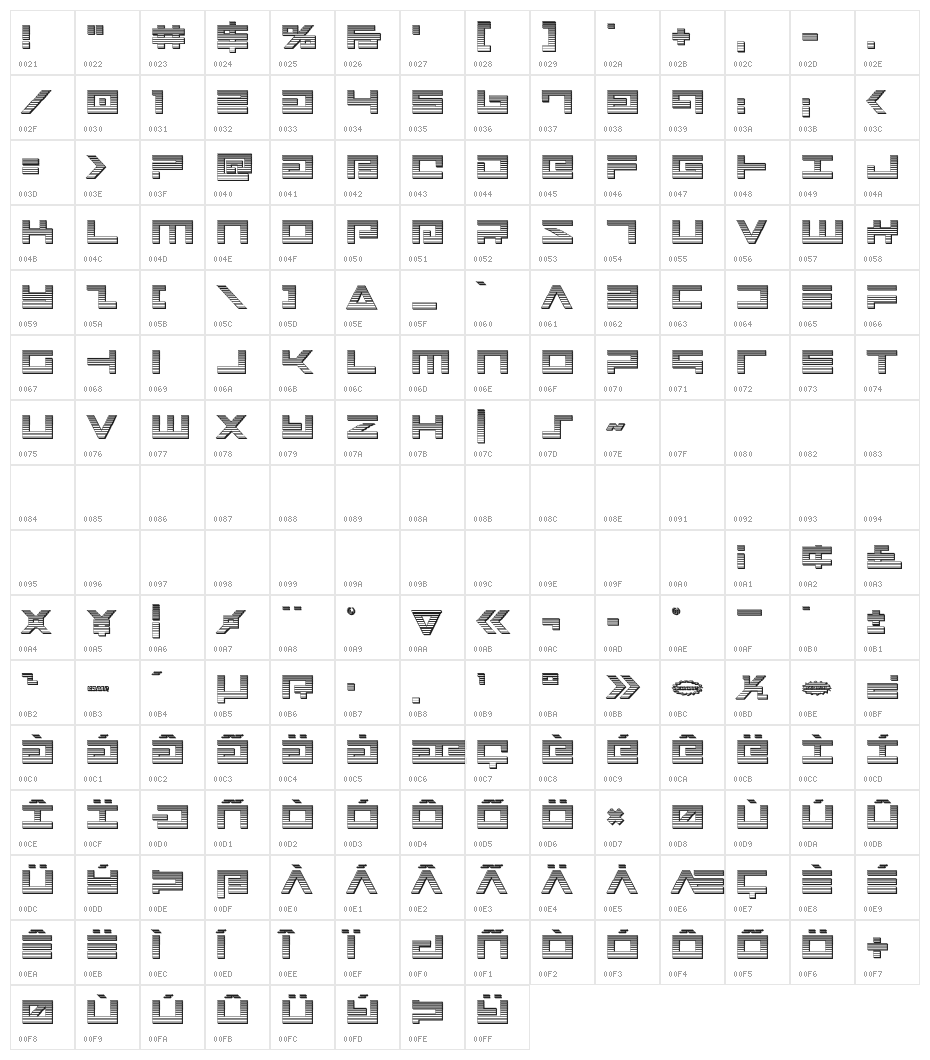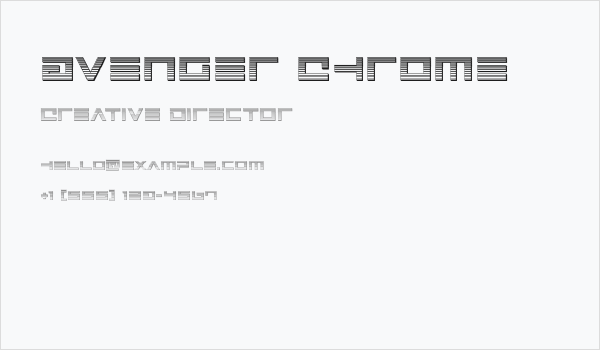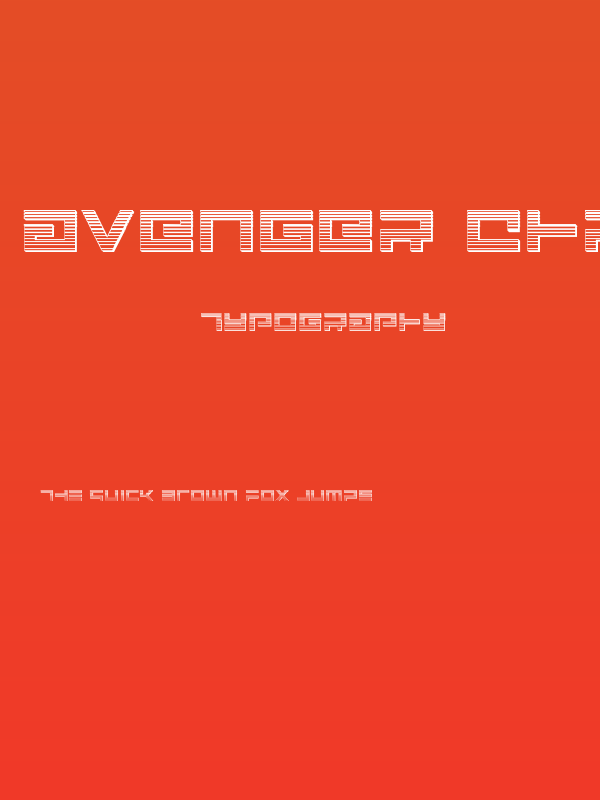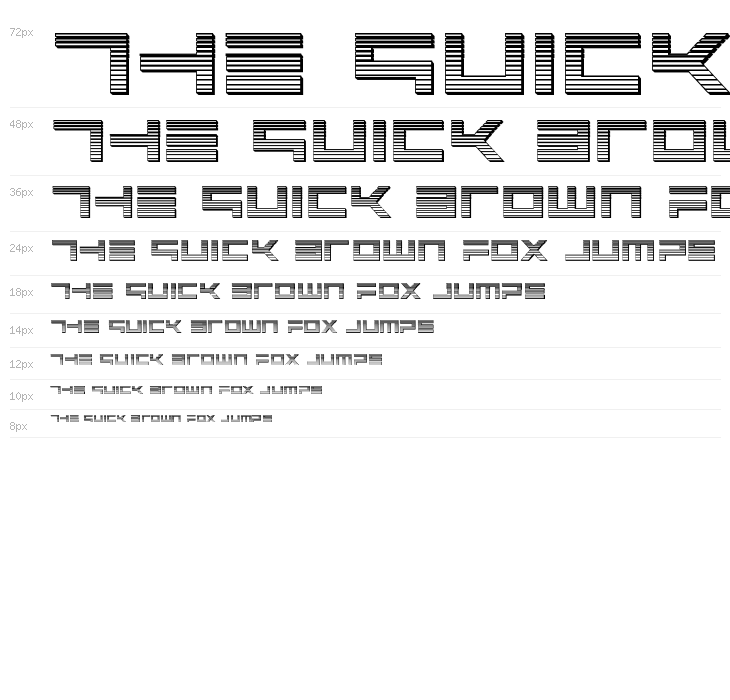
Avenger Chrome Font
Avenger Chrome Description
This font features a futuristic and geometric design, characterized by its bold, multi-line strokes that create a sense of depth and dimension. Each character is constructed with parallel lines, giving it a chrome-like, metallic appearance. The uppercase and lowercase letters maintain a consistent style, with angular edges and a uniform height, contributing to a cohesive look. The numerals and special characters follow the same design principles, ensuring visual harmony across all elements. This font's unique structure makes it stand out, ideal for projects that require a modern and tech-inspired aesthetic.
| Proposed Projects | Ideal for sci-fi movie posters, tech company logos, video game titles, and futuristic branding materials. |